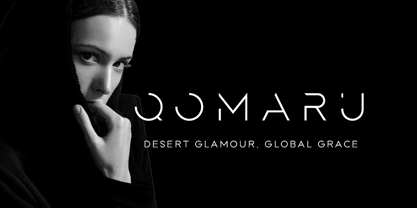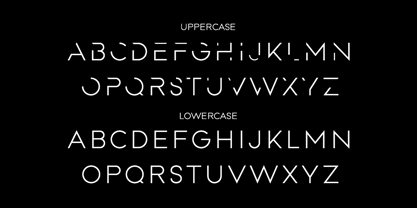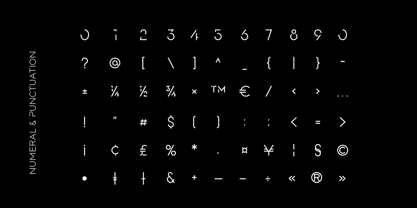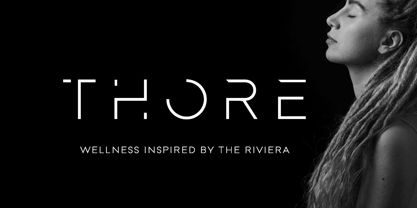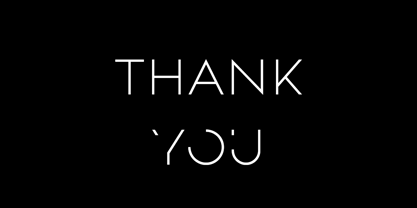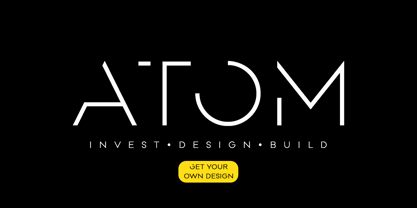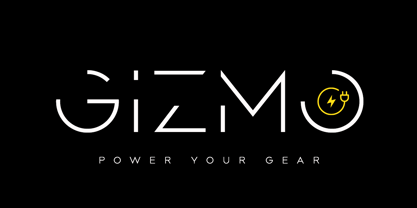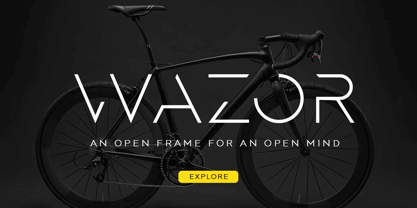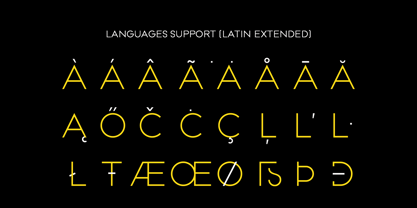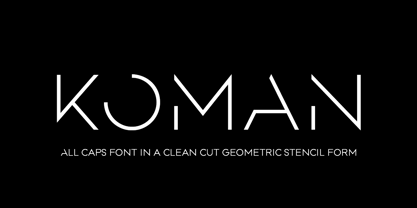
Koman
by MMMA Creative
The Koman Font Family was designed by Muhammad Ridha Agusni, Muhammad Mevlana Maliq Azizi and published by MMMA Creative. Koman contains 1 styles. More about this family
Koman is a striking all-caps display typeface that embodies clean-cut geometric precision and unique stencil breaks. Its open-frame letterforms masterfully balance minimalism with architectural integrity, resulting in a modern and sophisticated aesthetic. Ideal for branding, luxury products, editorial headlines, and sports or tech visuals, Koman imparts a bold yet refined presence to any design project. Equipped with full punctuation, numerals, multilingual Latin support, and a harmonious pairing of uppercase and lowercase forms, this font offers exceptional versatility while maintaining its strong contemporary character.
Designers: Muhammad Ridha Agusni, Muhammad Mevlana Maliq Azizi
Foundry: MMMA Creative